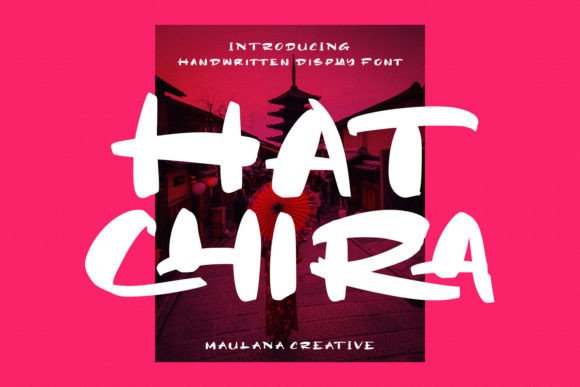
In a world of monotonous typography, Hatchira Font emerges as a striking display font, a beacon of creativity ready to illuminate your designs with its Japanese-inspired charm. Crafted by the ingenious Maulana Creative, this font radiates strength and confidence, effortlessly elevating your headlines and logotypes to new heights of visual impact.
Immerse yourself in the allure of Hatchira Font, a display font that exudes personality and charisma. Each meticulously crafted letterform dances across the screen, captivating your audience with its dynamic flair. Whether you're designing logos, posters, or eye-catching social media graphics, Hatchira Font is your trusted companion, adding a touch of magic to every project.
Gone are the days of settling for ordinary fonts that blend into the background. With Hatchira Font, you have the power to command attention, to make a statement that resonates with your audience. Its bold and confident stance ensures that your message will be heard loud and clear, leaving an unforgettable impression that lingers long after they encounter your designs.
Hatchira Font is more than just a collection of letters; it's an expression of your unique style, a reflection of your brand's personality. Its versatility knows no bounds, adapting seamlessly to a myriad of design aesthetics, from sleek and modern to playful and whimsical. Unleash your creativity and watch as Hatchira Font transforms your designs into captivating masterpieces.
Embrace the beauty of diversity and add Hatchira Font to your digital toolbox. As a display font, it harmonizes effortlessly with other typefaces, creating striking combinations that will set your designs apart from the crowd. Experiment with different colors, sizes, and arrangements to discover endless possibilities for visual expression.
Don't let ordinary fonts hold you back. Embrace the transformative power of Hatchira Font and unlock a world of creative possibilities. Its Japanese-inspired charm, bold personality, and unwavering confidence will elevate your designs to new heights, leaving your audience captivated and inspired.